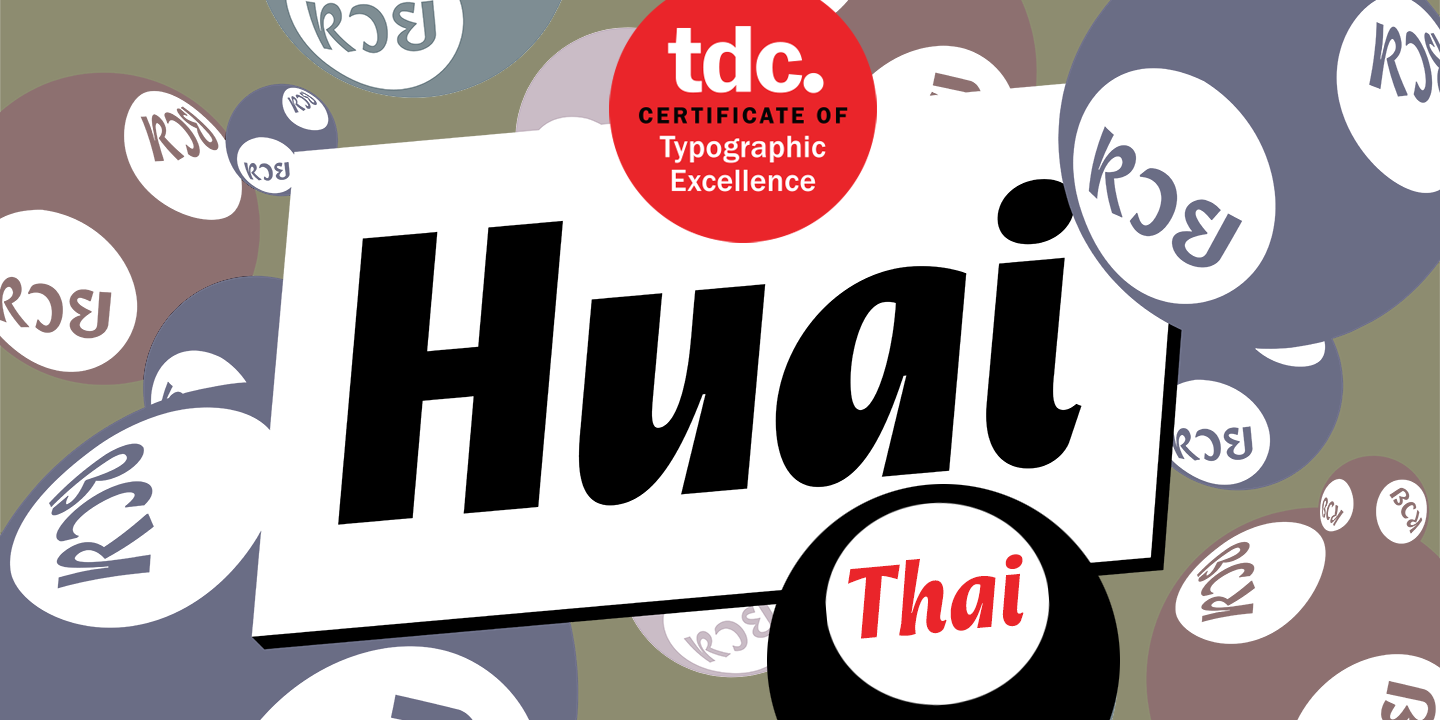
Huai Thai Font is perfect for Thai restaurant branding, Southeast Asian cultural events, Buddhist temple signage, Asian spa and wellness centers, Thai massage parlors, exotic travel promotions, Asian cuisine packaging, and mindfulness retreat materials.
Huai Thai Font is exciting because it authentically captures the serene beauty and spiritual essence of Thai culture through its graceful character design that reflects the flowing elegance of traditional Thai calligraphy and the peaceful harmony of Buddhist philosophy. Its distinctive styling and cultural depth make it the perfect choice for brands that want to communicate tranquility, authenticity, and the profound wisdom of Southeast Asian traditions.
The Huai Thai Font family includes multiple Asian-inspired variations: Huai Thai Regular, Huai Thai Bold, Huai Thai Light, Huai Thai Condensed, Huai Thai Script, and Huai Thai Ornamental, along with traditional decorative elements and cultural symbols, providing designers with comprehensive tools for creating authentic Thai and Southeast Asian-themed brand experiences.
When exploring Asian typography solutions, Huai Thai Font Free Download emerges as the definitive choice for designers working on Thai cultural and Southeast Asian wellness projects. This beautiful typeface embodies the essence of Thai hospitality and spiritual tranquility while offering the technical precision that contemporary hospitality and wellness brands require. The font's serene character and cultural authenticity create immediate connections with audiences seeking authentic Asian experiences and mindful lifestyle choices.
Professional designers consistently choose Huai Thai Font for projects requiring genuine Thai authenticity and peaceful appeal. Its expertly crafted letterforms feature traditional influences that work exceptionally well in both intimate spa environments and large-scale cultural exhibition displays. The font's ability to convey serenity and cultural wisdom while maintaining strong brand recognition makes it invaluable for comprehensive identity systems in the hospitality, wellness, and authentic Asian product sectors.
Whether you're developing Thai restaurant identities, creating wellness retreat branding, or designing cultural celebration materials, Huai Thai Font delivers the authentic Thai character and spiritual appeal that resonates with audiences seeking genuine Southeast Asian experiences and mindful living. Its rich cultural heritage and calming design ensure your projects honor Thai traditions while maintaining contemporary professional standards that attract modern wellness seekers and cultural enthusiasts.